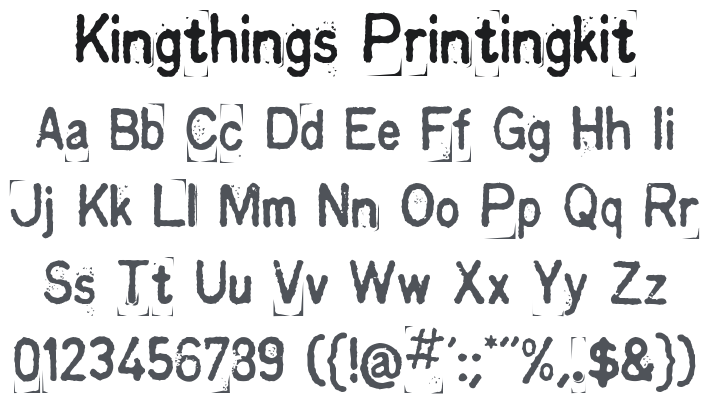
Kingthings Printingkit Font
About Kingthings Printingkit
I had one as a child - Red rubber letters, and ink that was extremely unforgiving - Oooo she did get cross! Anyway, it was called 'The John Bull Printing Set' and I spent hours losing the letters, cutting fingers on sharp tweezers and trying, surreptitiously, to get the ink off the priceless antique lace tablecloth - sometimes I think I even printed things with it! - This is a small homage. Oh and I like deconstruction too...